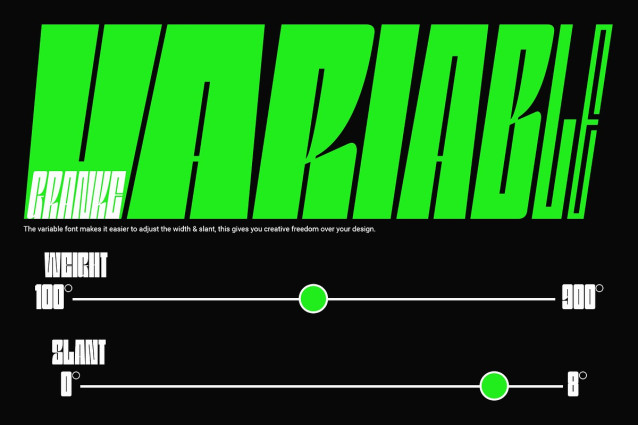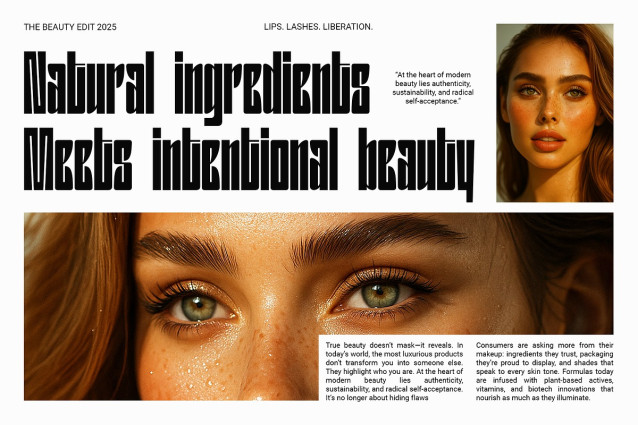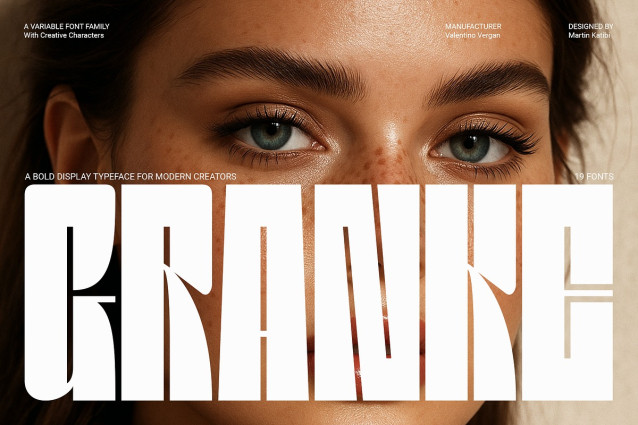
Granke Font Family
Granke Font Family is more than a font — it’s a statement piece for designers who demand presence, flexibility, and a global voice in their typographic work. With tall, striking letterforms and a bold personality, Granke commands attention in everything from brand identities and editorial spreads to ad campaigns, UI interfaces, and motion graphics.
Designed with the needs of today’s creatives in mind, Granke is the perfect type solution for those who work across multiple formats and languages — without sacrificing style or function.